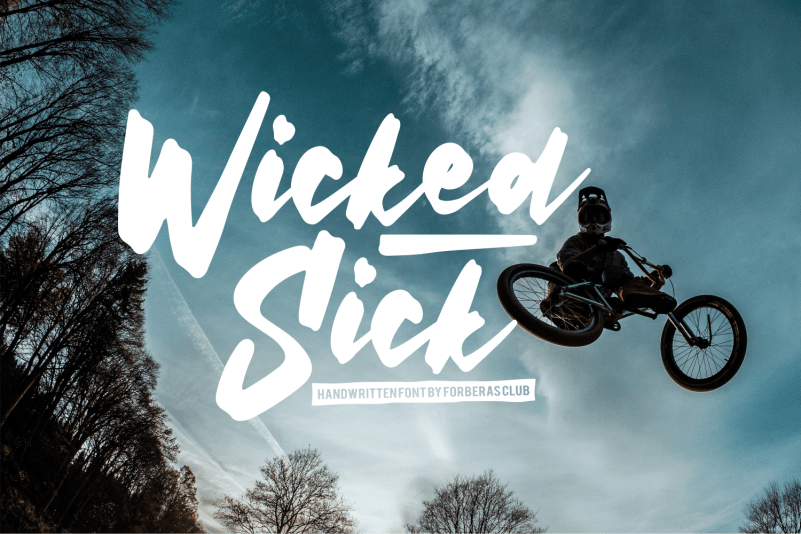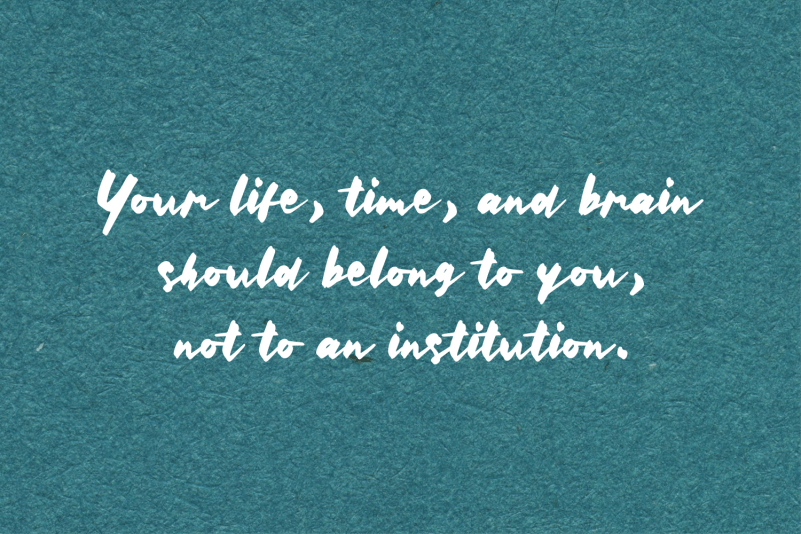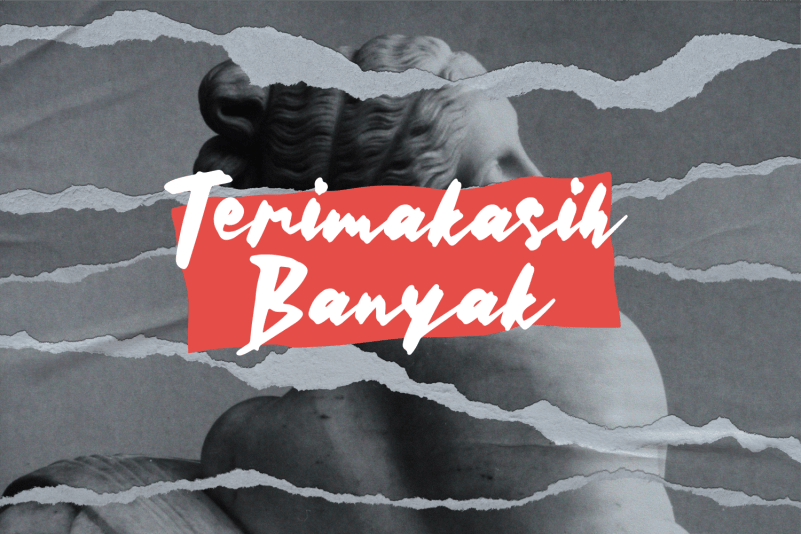
Wicked Sick Font
Wicked Sick Script Font is a lovely script font featuring charming, playful characters that seem to dance along the baseline. Add this font to your most creative ideas, and notice how it makes them stand out!